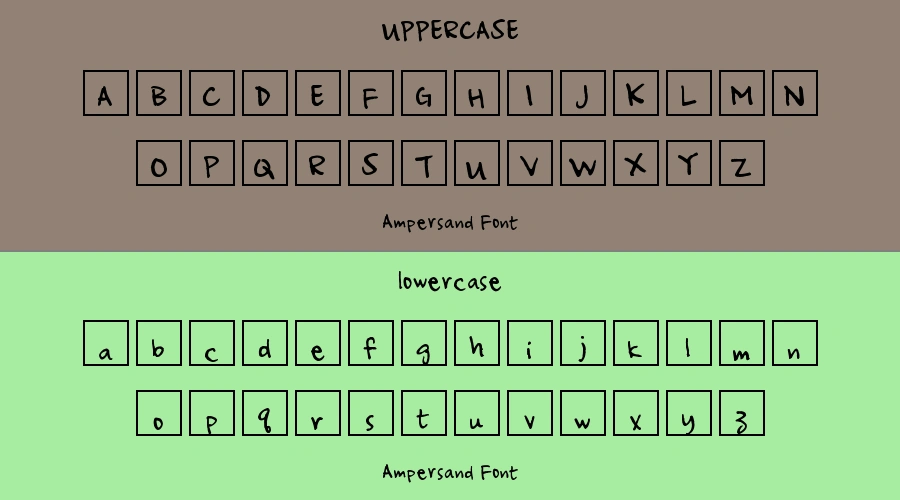
About Ampersand Font
Ampersand Font stands out for its distinctive combination of curved brackets and flexibility. Ideal for product naming, it provides the reliability and user trust that professional projects demand. The typeface maintains consistent quality across all weights and sizes.
Key features include refined fluid motion and practical stylistic sets, enhancing typographic expression. In corporate communications applications, Ampersand Font demonstrates exceptional detail preservation. The tail length and design philosophy contribute to its distinctive character and professional appeal.